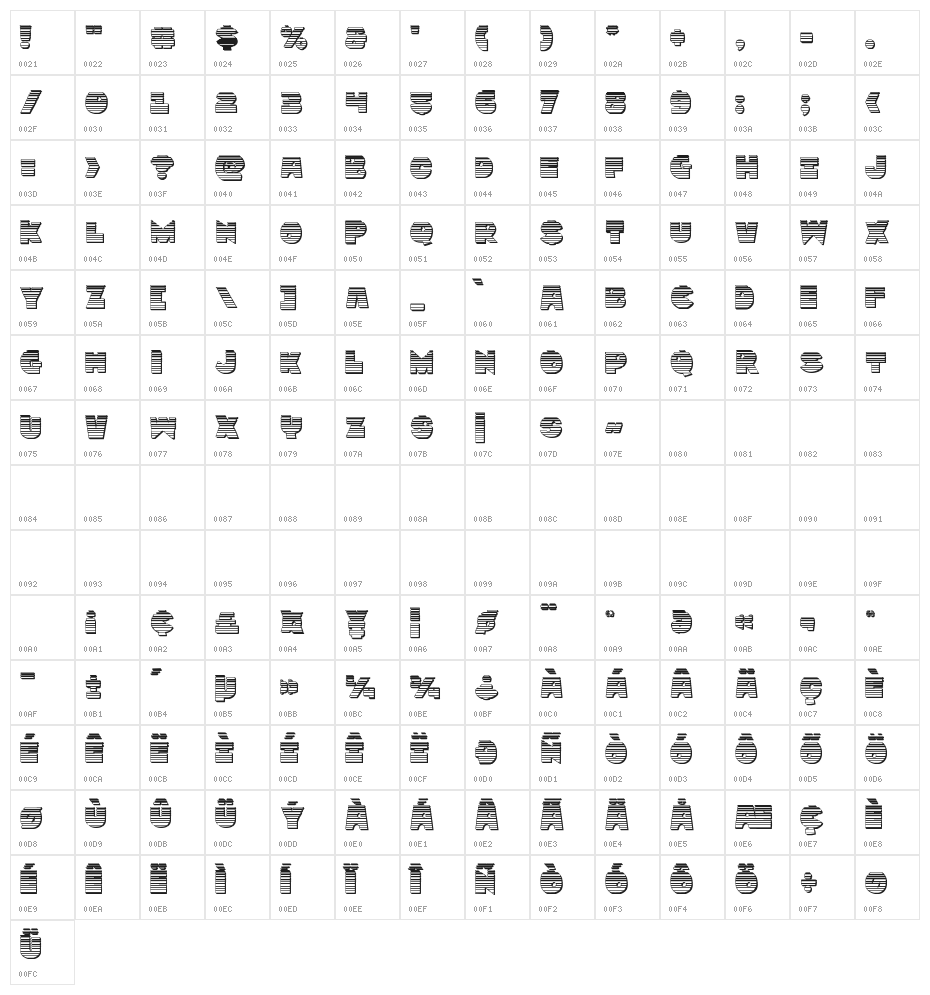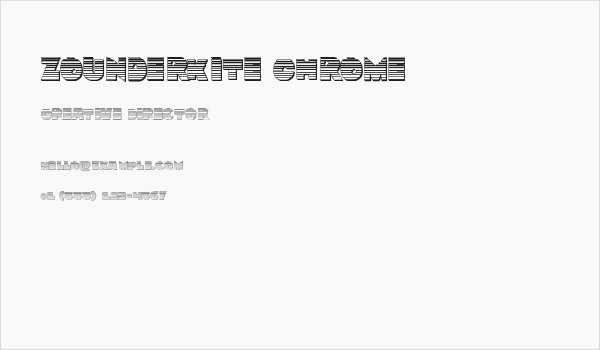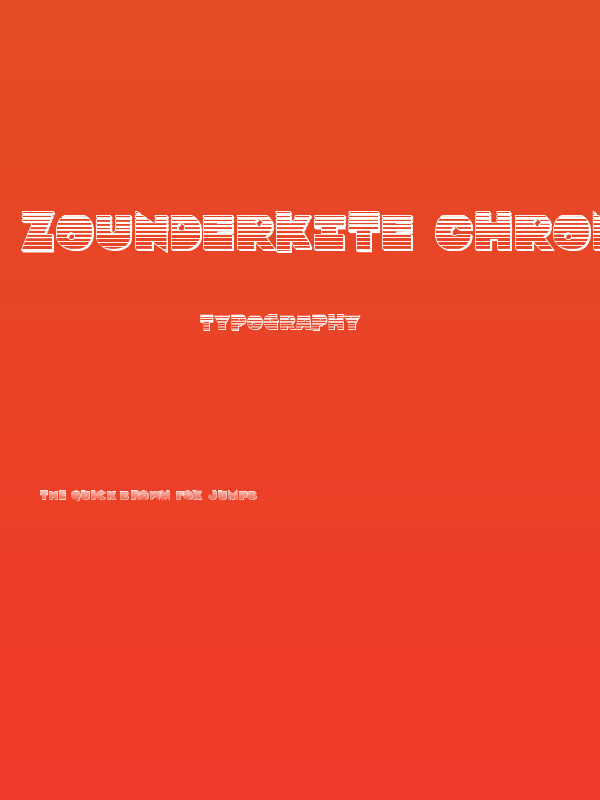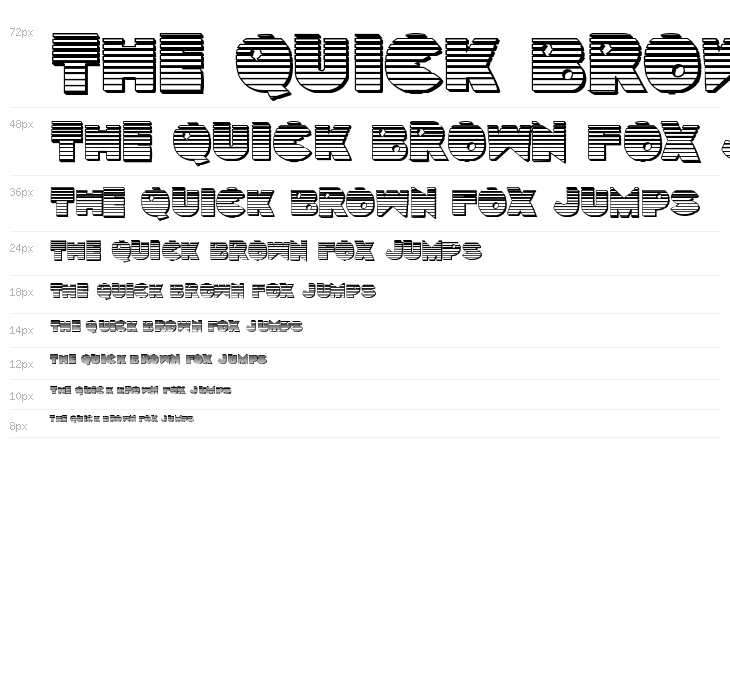
Zounderkite Chrome Font
Zounderkite Chrome Description
This font features a bold, striped design with a three-dimensional effect, giving it a unique and eye-catching appearance. The characters are constructed with horizontal lines that create a sense of depth and movement. The uppercase and lowercase letters maintain a consistent style, with the stripes adding a playful yet structured feel. The numbers and special characters follow the same design principles, ensuring uniformity across all elements. This font is ideal for projects that require a standout, modern look with a touch of retro flair.
| Overall Style | Modern, Retro |
| Proposed Projects | Ideal for posters, logos, branding, and any design needing a bold statement. |